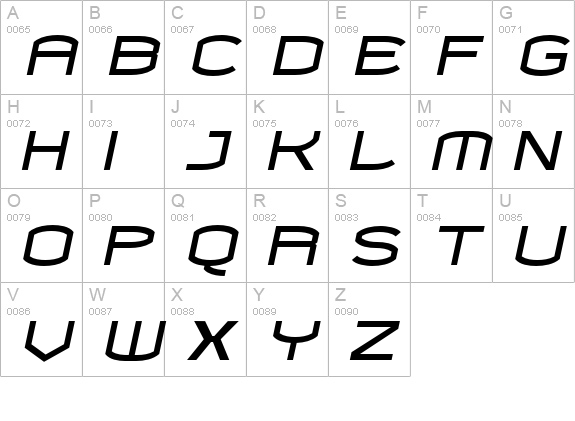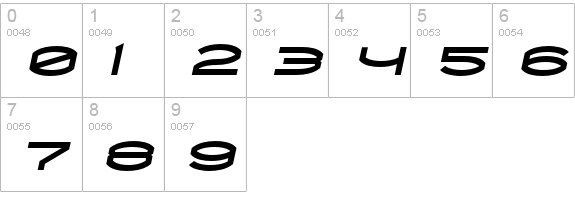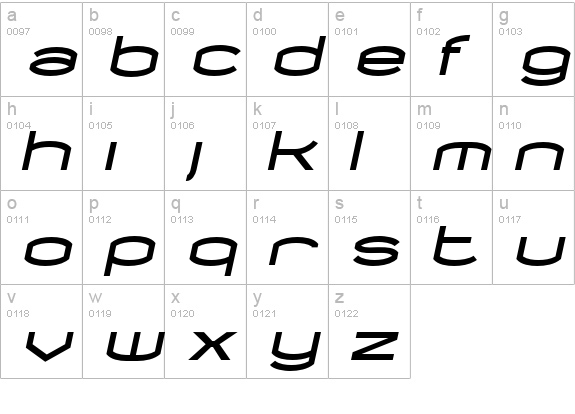
Chord-BlackItalic font exudes a sense of elegance and sophistication with its sleek and modern design. This striking typeface features bold, slanted characters that convey a sense of authority and style. Ideal for adding a touch of drama to your designs, Chord-BlackItalic is perfect for headlines, logos, and other display purposes. The best part? Chord-BlackItalic is available for free download at FontsMarket.com. This means you can easily access this stunning font and incorporate it into your projects without any cost. Don't miss out on the opportunity to elevate your designs with the unique charm of Chord-BlackItalic. Download it today and unlock a world of creative possibilities.